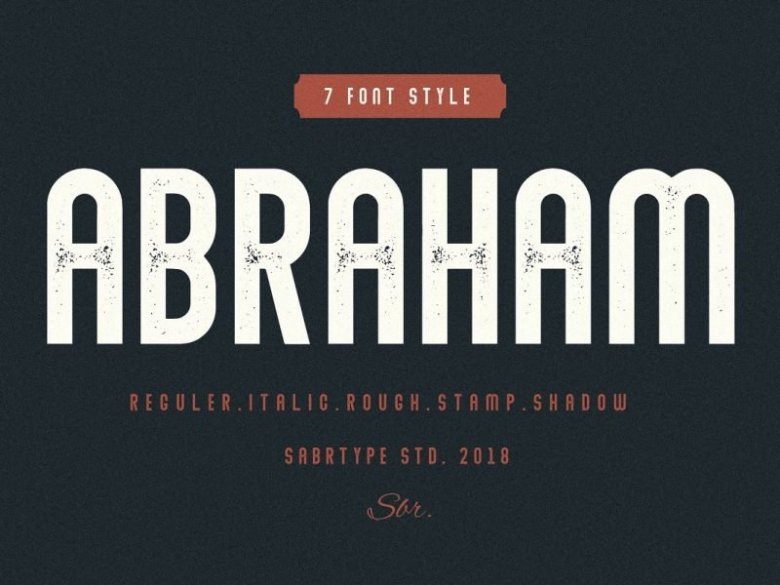
Abraham Font Family
Introducing Abraham Typeface. The Abraham is a modern, sans serif modular family. Abraham is based on solid solid fonts, combining various styles including Regular, Italic, Rough, Stamp and Shdow. Suitable for logos, greeting cards, quotes, posters, branding, business cards, stationary, design titles, blog headers, art quotes, typography.